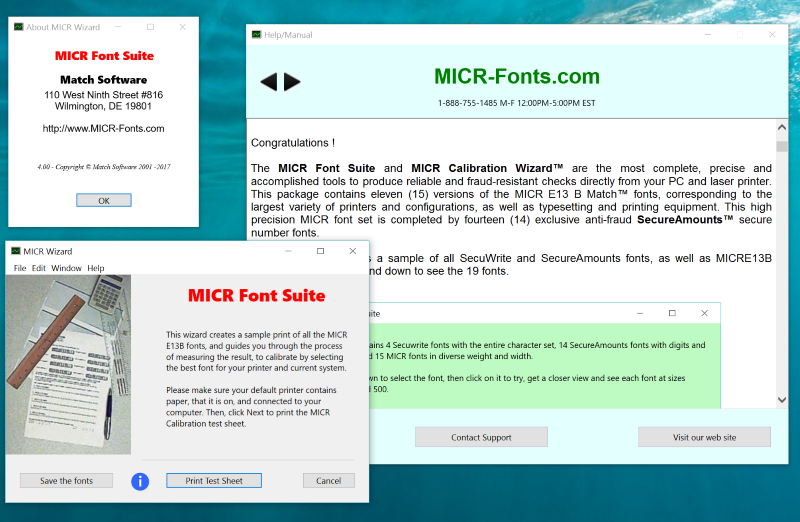
MICR Font Suite Description
This package contains a set of high precision MICR fonts for corporations and developers who want to print their own checks through their own software. Also included is an exclusive calibration wizard to pick the best font for any configuration among the 15 available. Plus, to securely print amounts, a set of 14 exclusive SecureAmount fonts with elaborate anti-fraud techniques, such as networks of fine lines analogous to what is used on bank notes.
MICR E13B characters must have very precise dimensions, to generate reliable signal when going through the readers. Many MICR fonts around do not meet these standards, and not all MICR fonts are created equal. Some have positioning inaccuracies that create unreliable MICR strips, and may generate errors in the bank processing equipment, leading to manual processing fees. MICR printing of a custom check, with secure number fontThe MICR E13B Match font set has been created with extremely accurate positioning, and tested with the finest benchmark systems. Under ideal conditions, there should be only one font in use, the MICR E13B Match. It has been created specifically to meet the ANSI and ABA (X9, 27-1995) banking standards when printed at exactly point size 12.
This package also permits to measure exactly the actual resolution of not only the printer, but the entire printing chain.The MICR E13B Match font set is the only one that comes with the exclusive new MICR E13B Calibration Wizard. Within minutes, using this astute calibration tool for all versions of Windows, from 3.1 up to the latest Window 8.x, you will be able to generate accurate and reliable MICR strips. Simple instructions will let you calibrate accurately and efficiently your MICR fonts, and print MICR checks in minutesIn addition to the MICR fonts, we supply an exclusive collection of 14 secure number fonts called SecureAmounts.